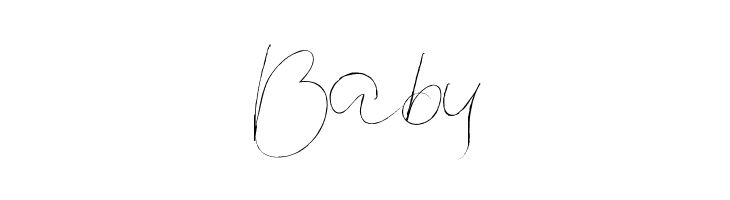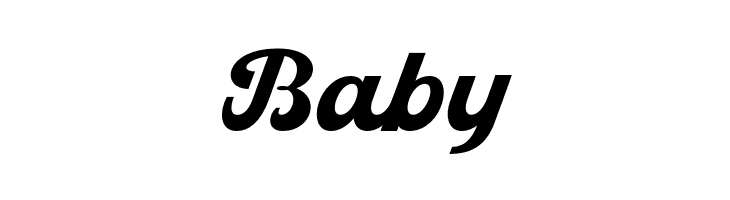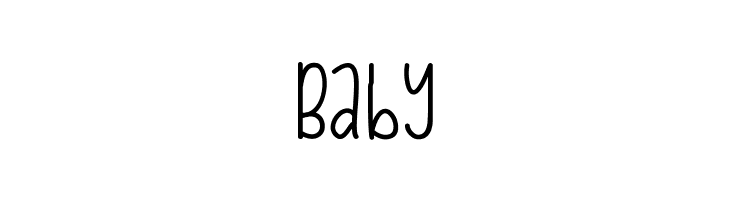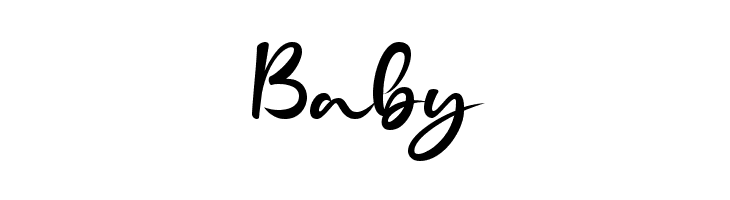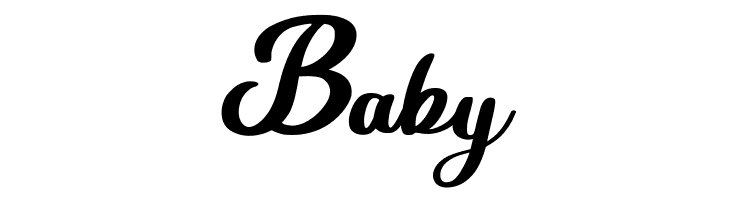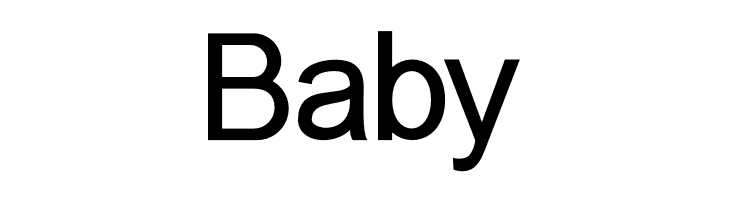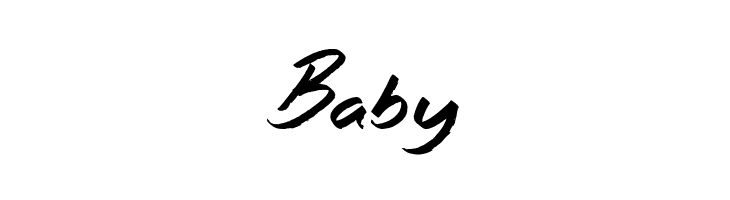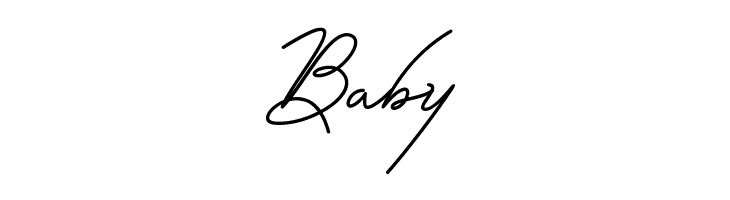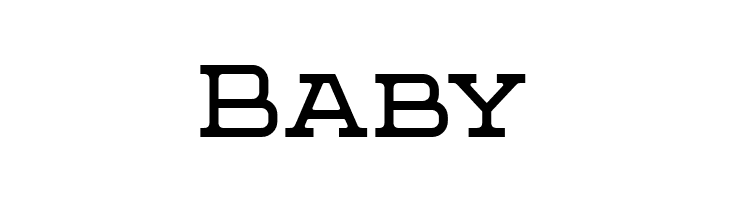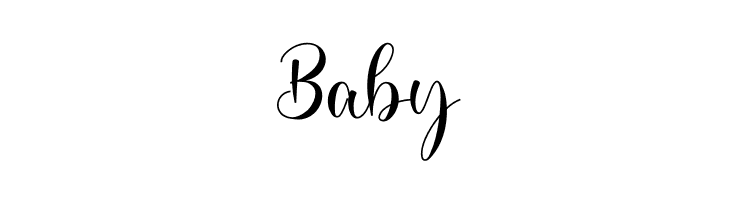
A bold, decorative font with a gradient effect and geometric structure.
A bold, italicized font with a futuristic and dynamic design.
A bold, geometric font with a modern and industrial style.
A bold, brush-style font with dynamic strokes and a sense of motion.
A graceful and elegant handwritten script font with fluid, connected letters.
An elegant and flowing script font with smooth, cursive letterforms.
A playful, hand-drawn font with tall, narrow letters and a casual style.
A playful and elegant script font with flowing, cursive letters.
A lively and expressive script font with fluid, dynamic letterforms.
A bold, flowing script font with elegant curves and smooth connections.
A modern, geometric font with rounded edges and uniform character width.
A geometric, modern font with octagonal shapes and uniform thickness.
A bold, geometric font with strong, angular lines and a blocky appearance.
A decorative font with martial arts figures representing each character.
A handwritten, cursive font with a casual and elegant style.
A bold, 3D italic font with a dynamic and playful style.
A decorative and artistic font with geometric patterns and bold, angular shapes.
A flowing, cursive font with elegant, connected characters and artistic flourishes.
A playful and quirky font with rounded and angular elements, ideal for fun projects.
A playful and whimsical font with bold, dynamic characters and unique serifs.
A bold, geometric sans-serif font with a modern and clean design.
An elegant script font with flowing, ornate swashes and loops.
A dynamic and flowing script font with elegant curves and smooth strokes.
A dynamic and playful script font with a handwritten feel.
A bold, flowing script font with elegant curves and modern flair.
A bold, geometric font with sharp angles and unique cutouts.
A bold, geometric font with angular shapes and sharp edges.
A bold, high-contrast serif font with a classic yet modern style.
A playful and dynamic script font with fluid, connected strokes.
A bold, playful font with rounded, hand-drawn characters.
A bold, playful font with thick, rounded strokes and a whimsical, hand-drawn style.
A delicate, flowing script font with thin, elegant strokes and a whimsical, handwritten style.
A bold, geometric font with a modern industrial style.
A bold, industrial stencil-style font with geometric precision.
A modern, clean sans-serif font with geometric letterforms.